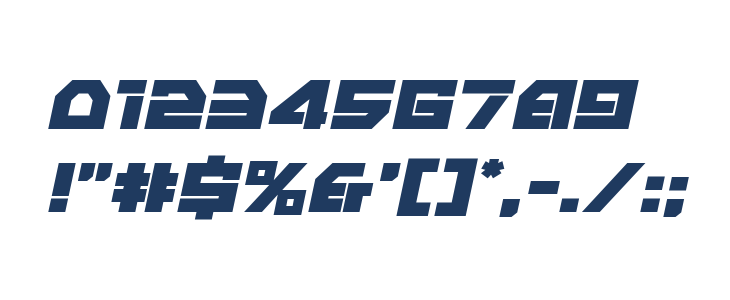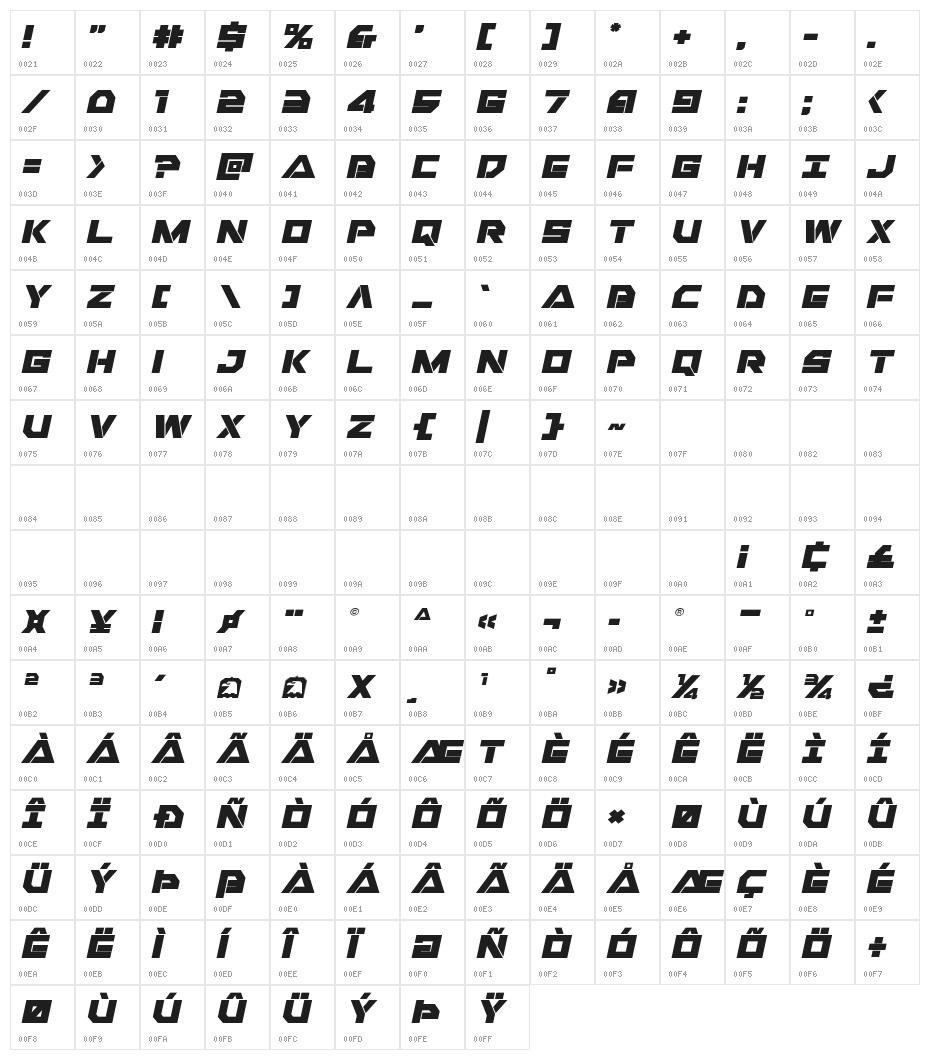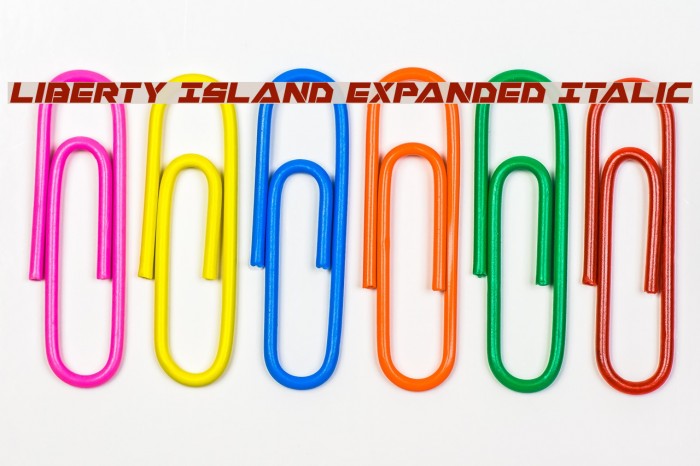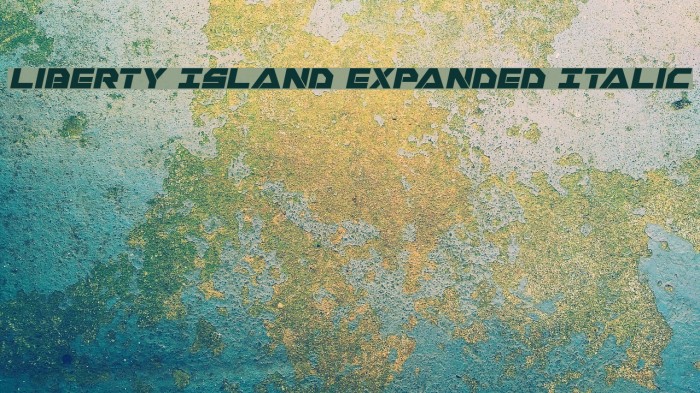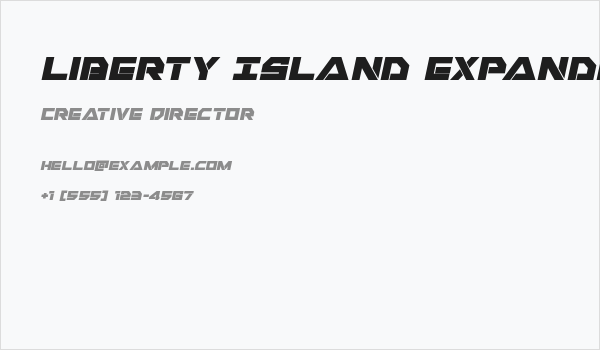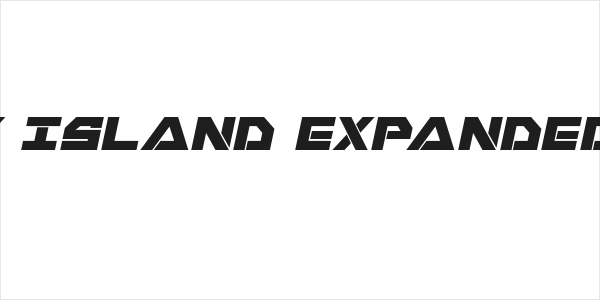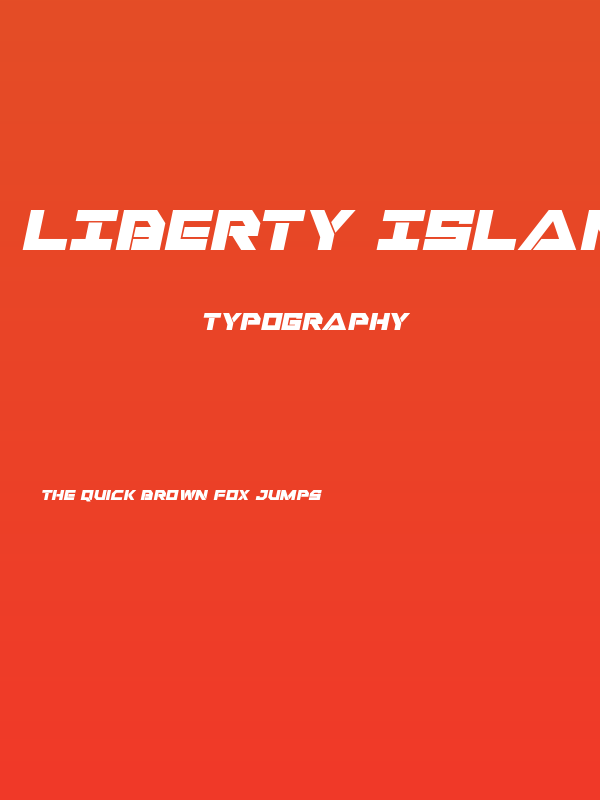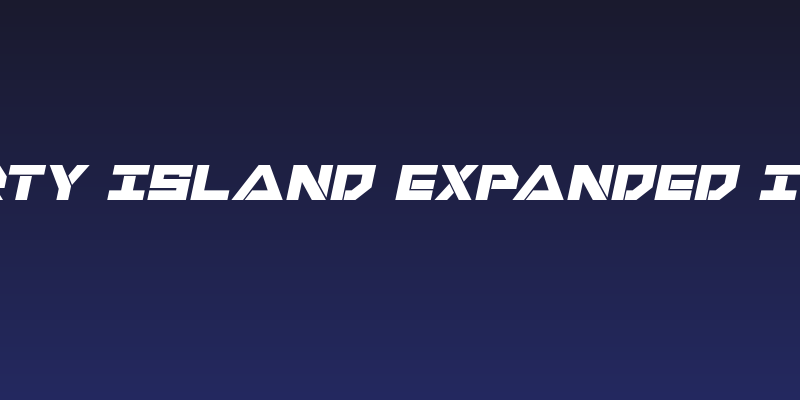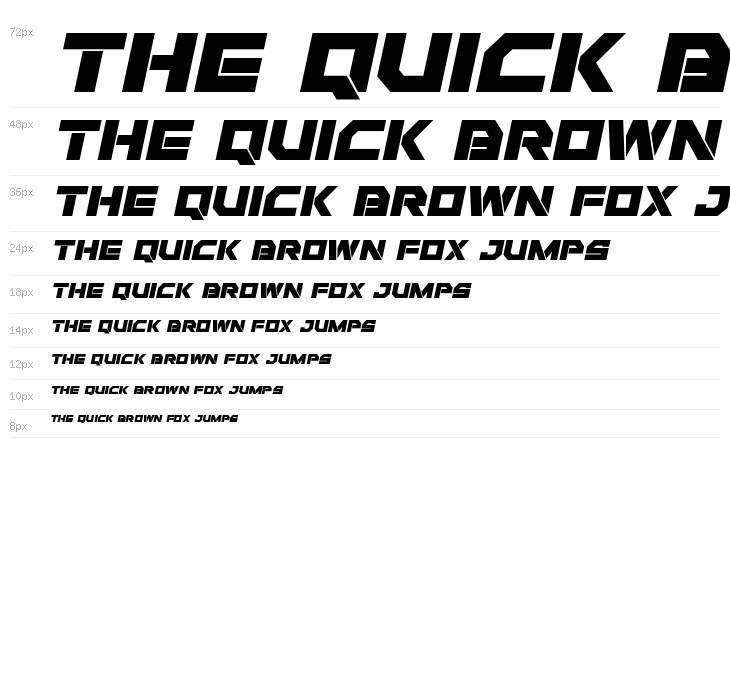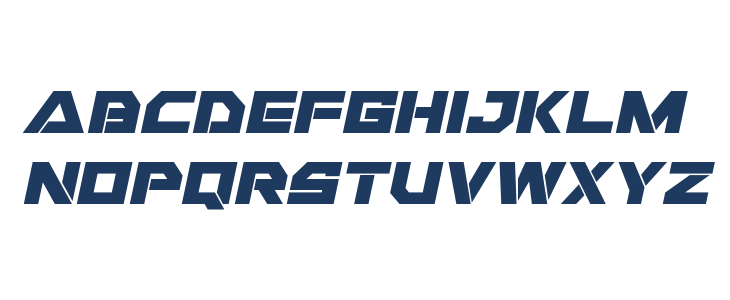
Liberty Island Expanded Italic Font
Liberty Island Expanded Italic Description
This font features a bold and dynamic design with an italicized slant, giving it a sense of motion and energy. The characters are expanded, providing a wide stance that enhances readability while maintaining a strong visual impact. The angular cuts and sharp edges contribute to a modern and futuristic aesthetic, making it suitable for projects that require a bold statement. The uppercase and lowercase letters are consistent in style, and the numerals and special characters complement the overall design, ensuring versatility across various applications.
| Proposed Projects | Ideal for sports branding, action movie posters, video game titles, and dynamic advertising campaigns. |